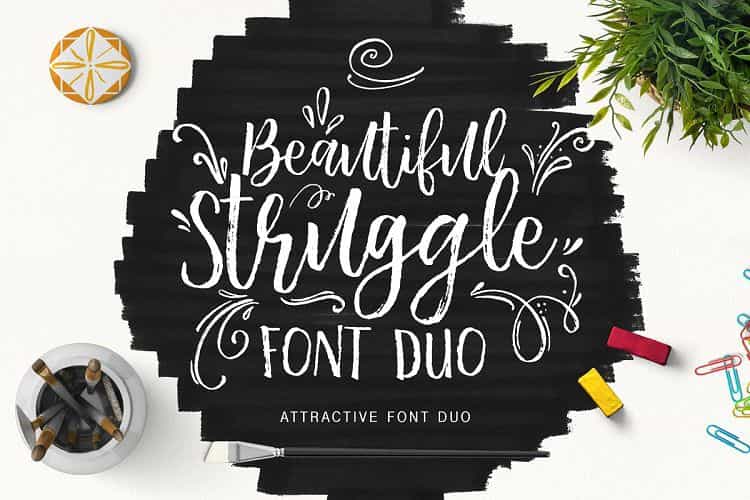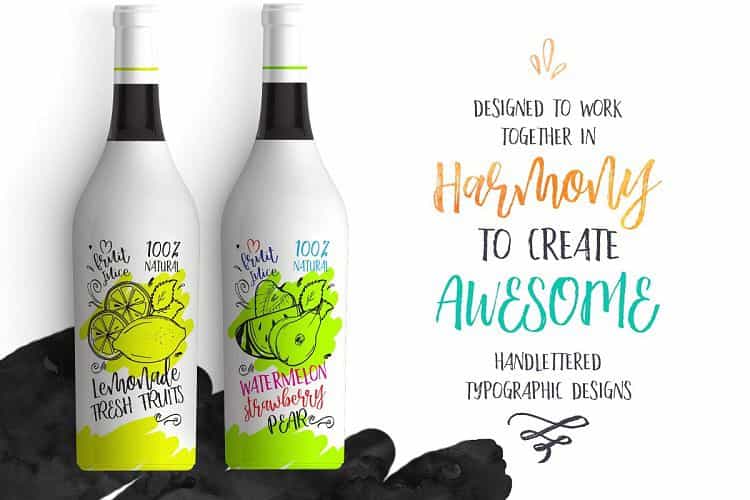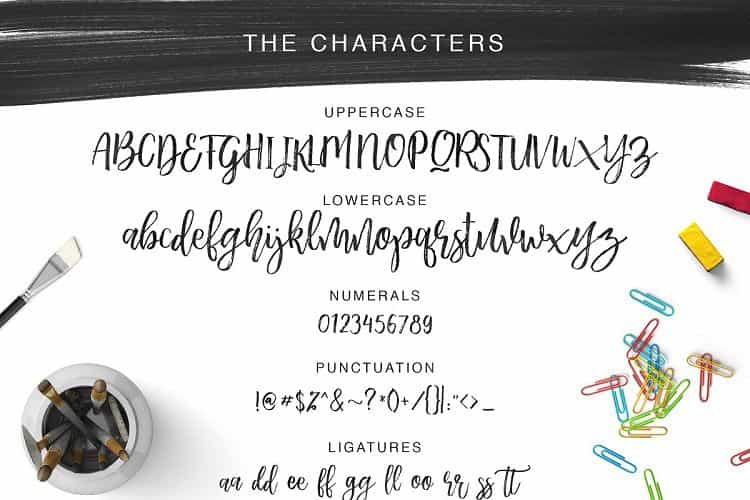
Beautiful Struggle Font Duo – a hand-brushed typeface, with two styles created to work together in harmony to create awesome hand-lettered typographic designs. Perfect for: Branding, Logos, Greeting Cards, Wedding Stationery, Posters, and Quotes. Other awesome feature is the bonus ornament vector.